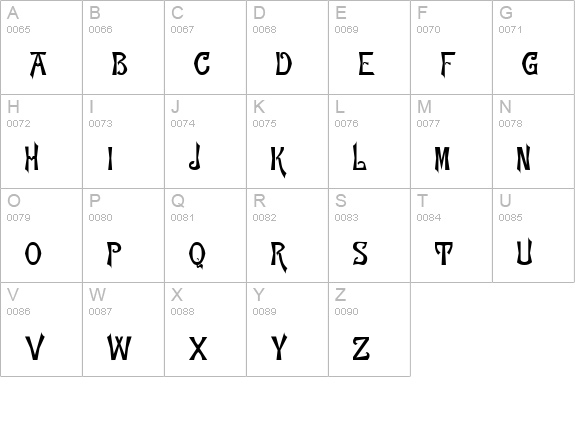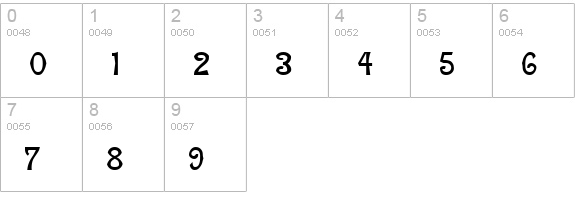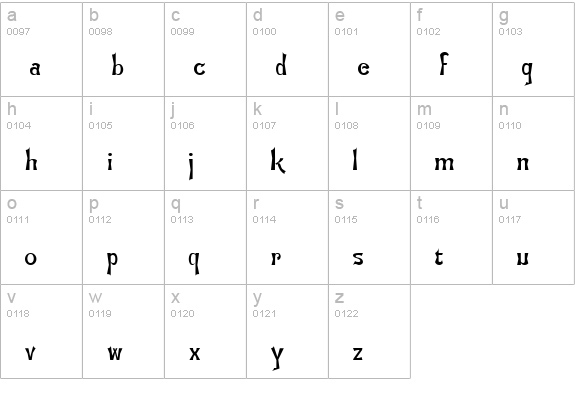
Flemish Regular Font Details
Flemish Regular is the standard, neutral variant in the Flemish typeface family \xE2\x80\x94 well suited to general body text, paragraphs, and standard typographic work.
The Flemish Regular font exudes a classic and timeless elegance with its clean lines and balanced proportions. This versatile typeface is perfect for a wide range of design projects, from elegant invitations to professional presentations. Its readability and clarity make it a favorite choice for both print and digital media. Best of all, Flemish Regular is available for free download at FontsMarket.com. This means you can easily access this high-quality font and use it in your projects without any cost. Don't miss out on the opportunity to enhance your designs with the timeless beauty of Flemish Regular font. Download it today and see the difference it can make in your work!